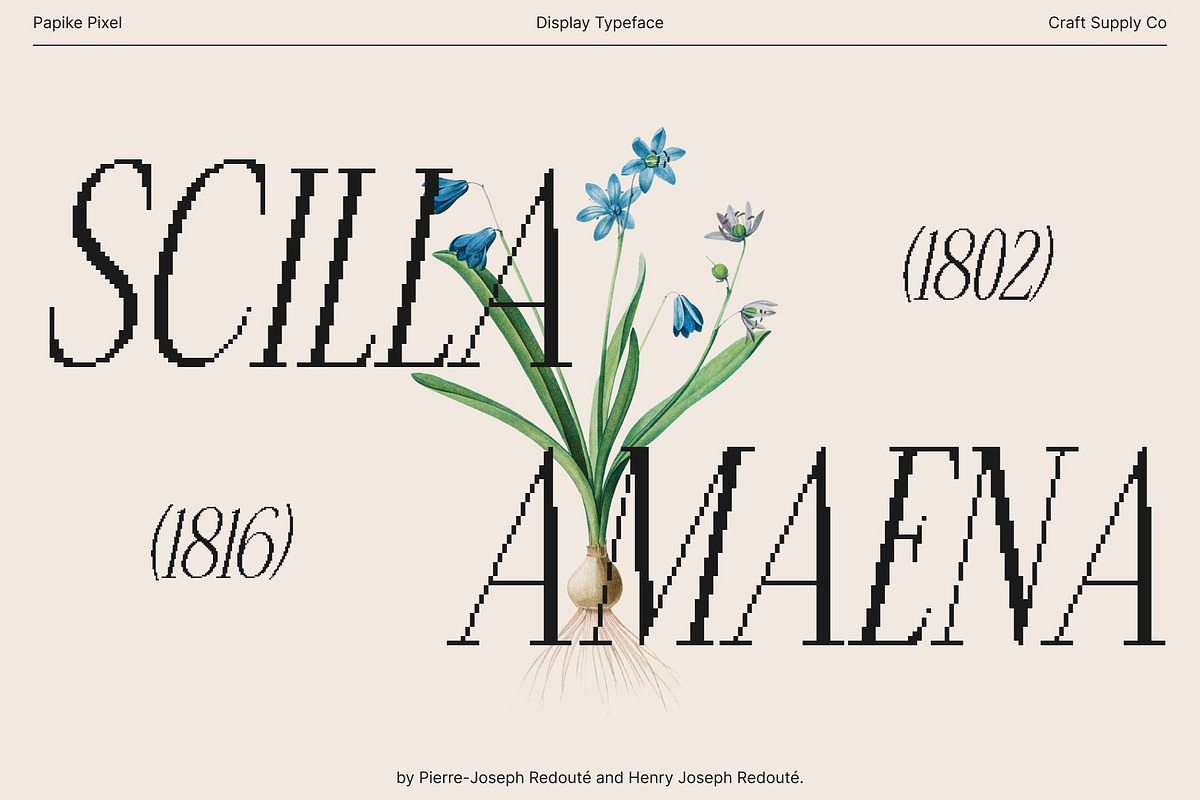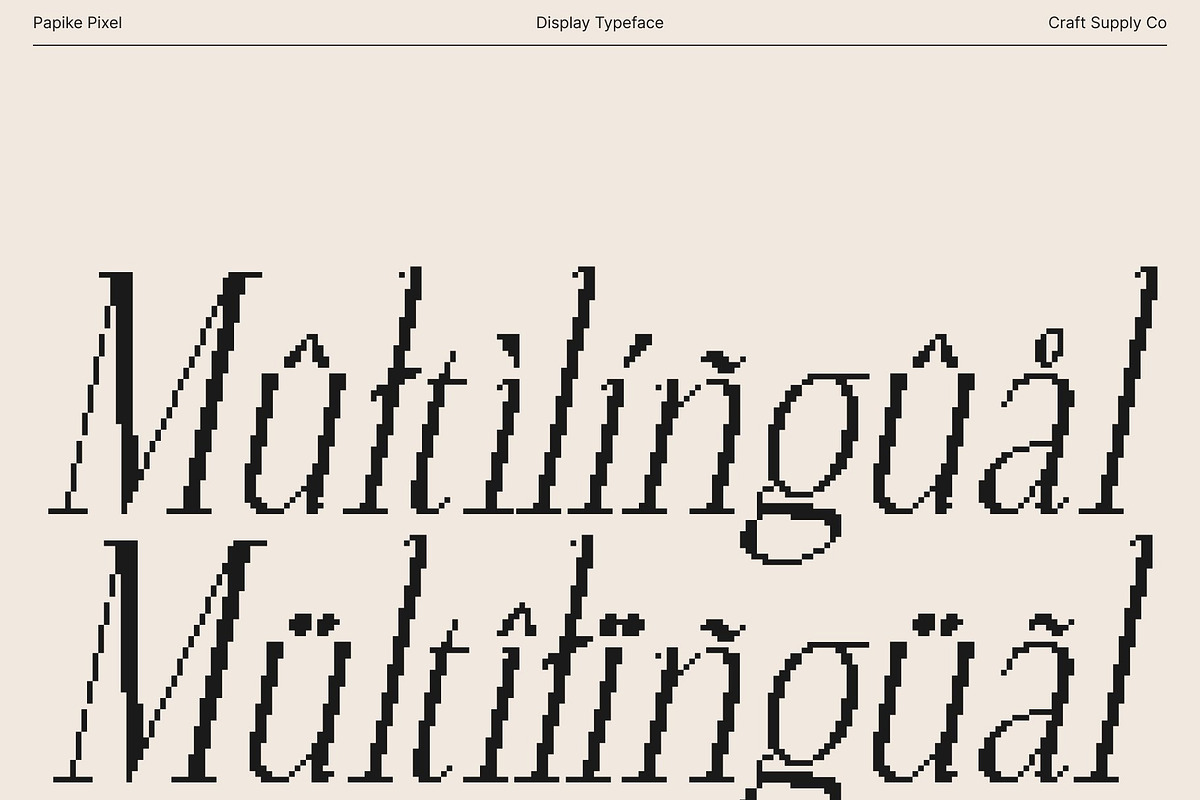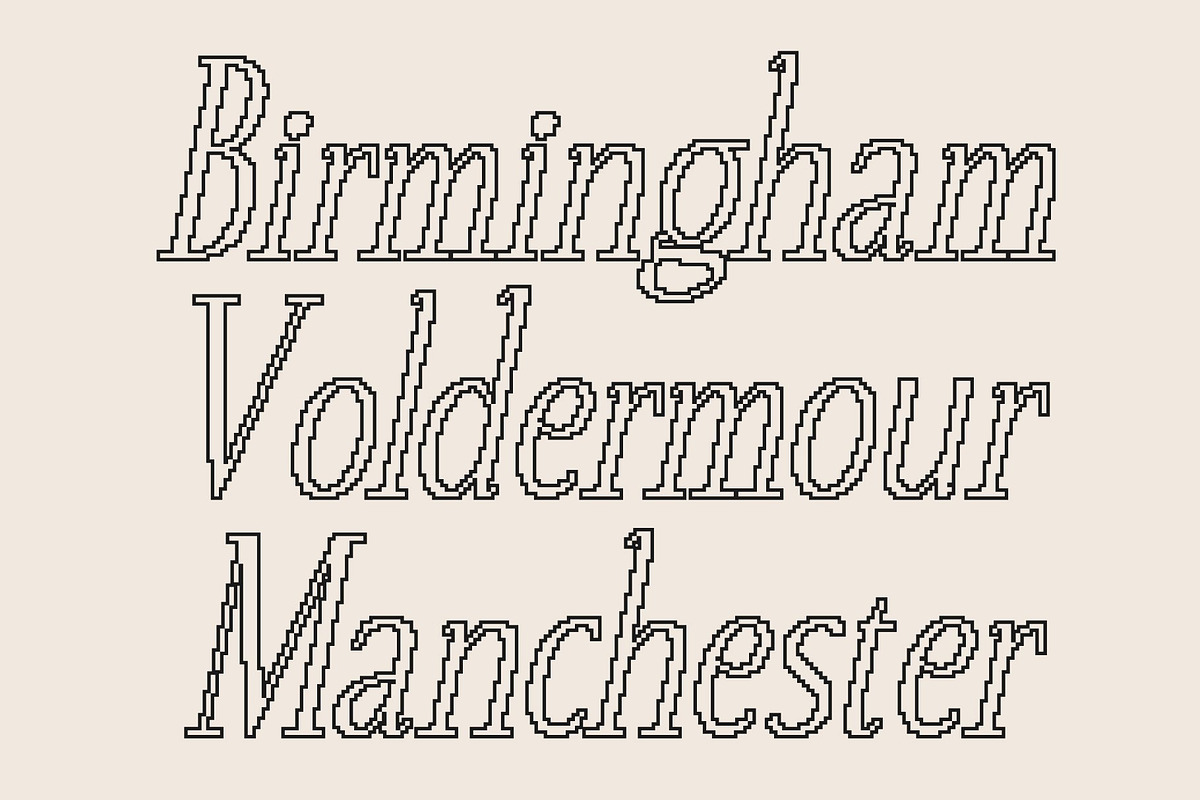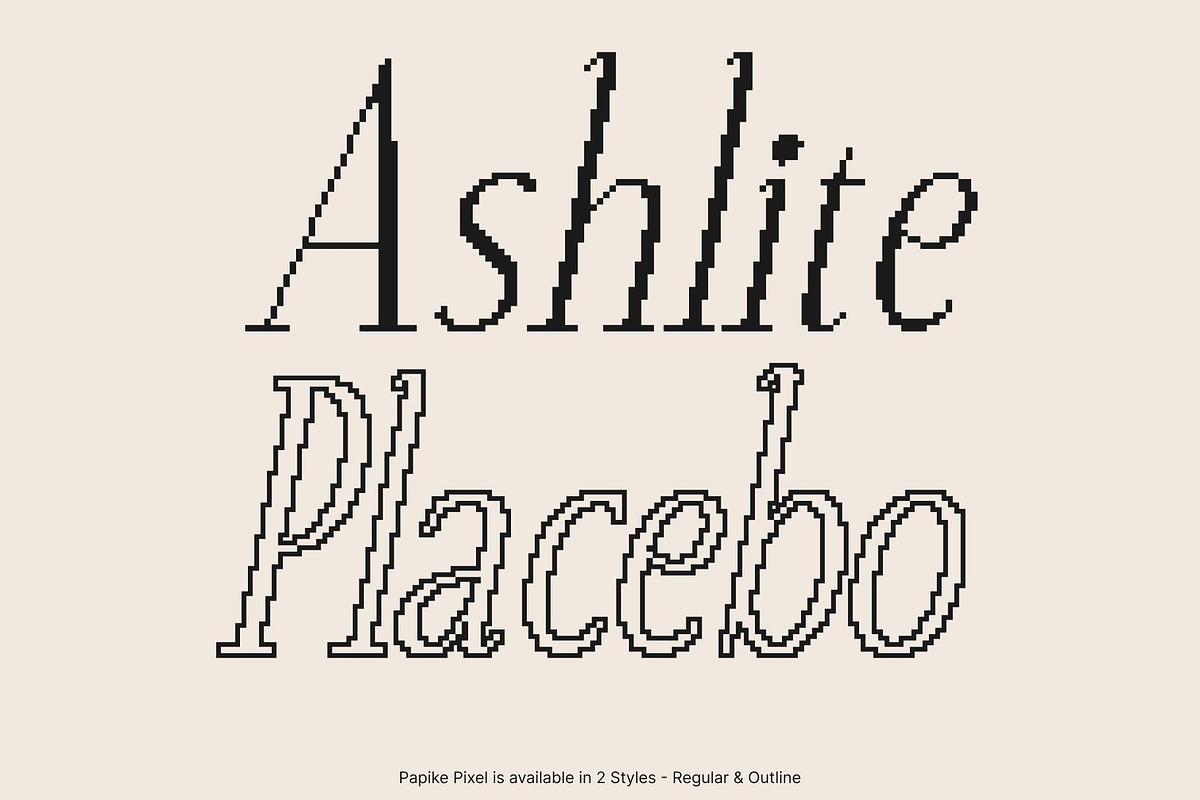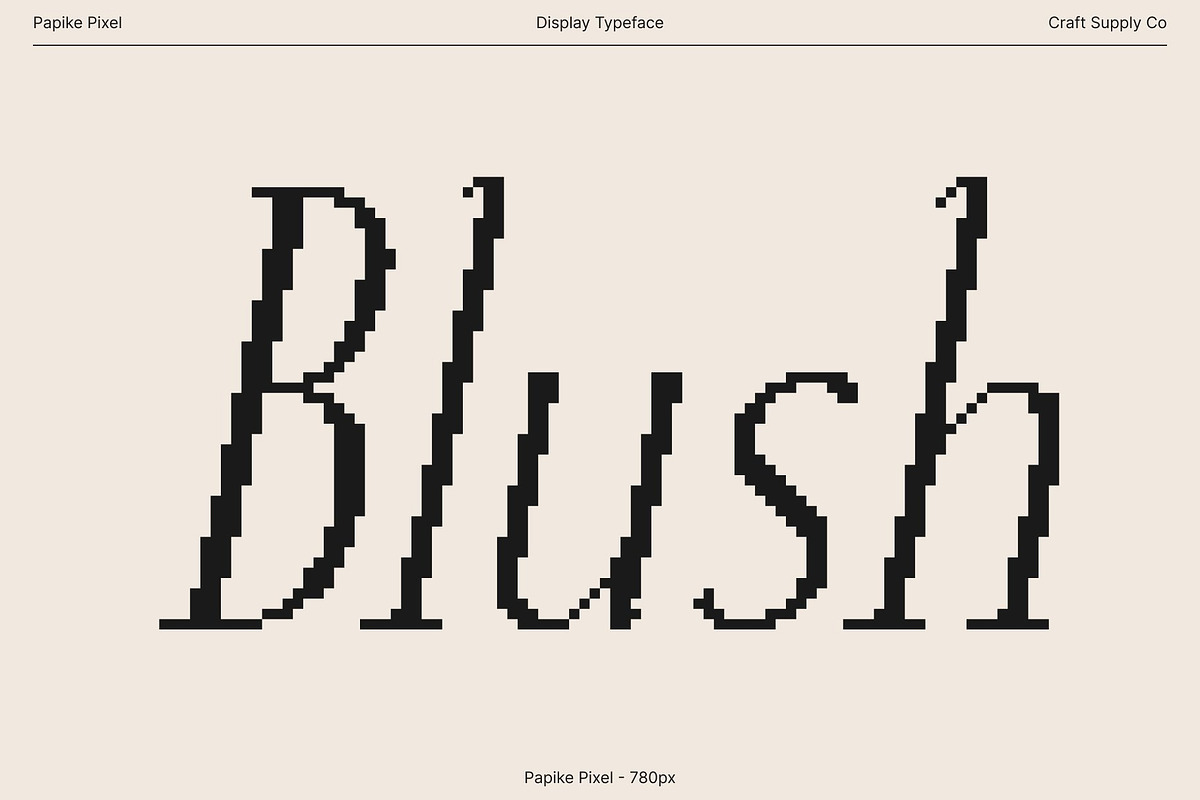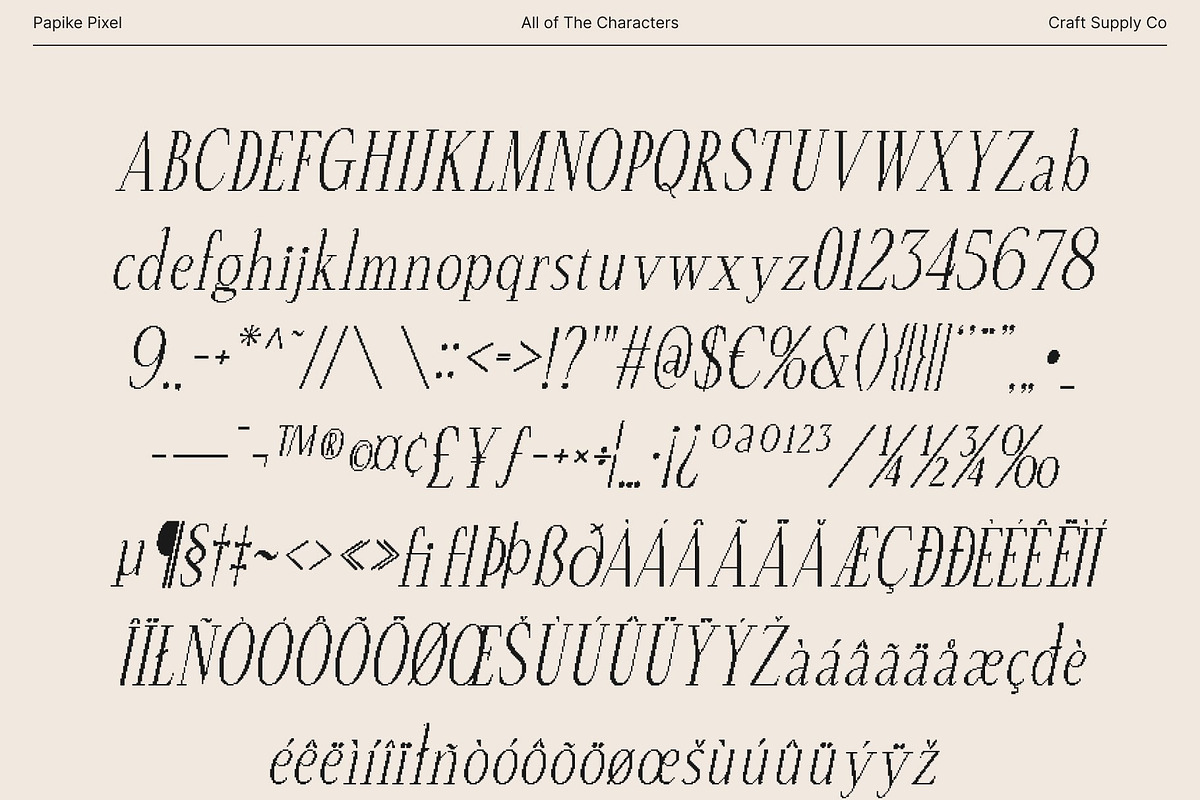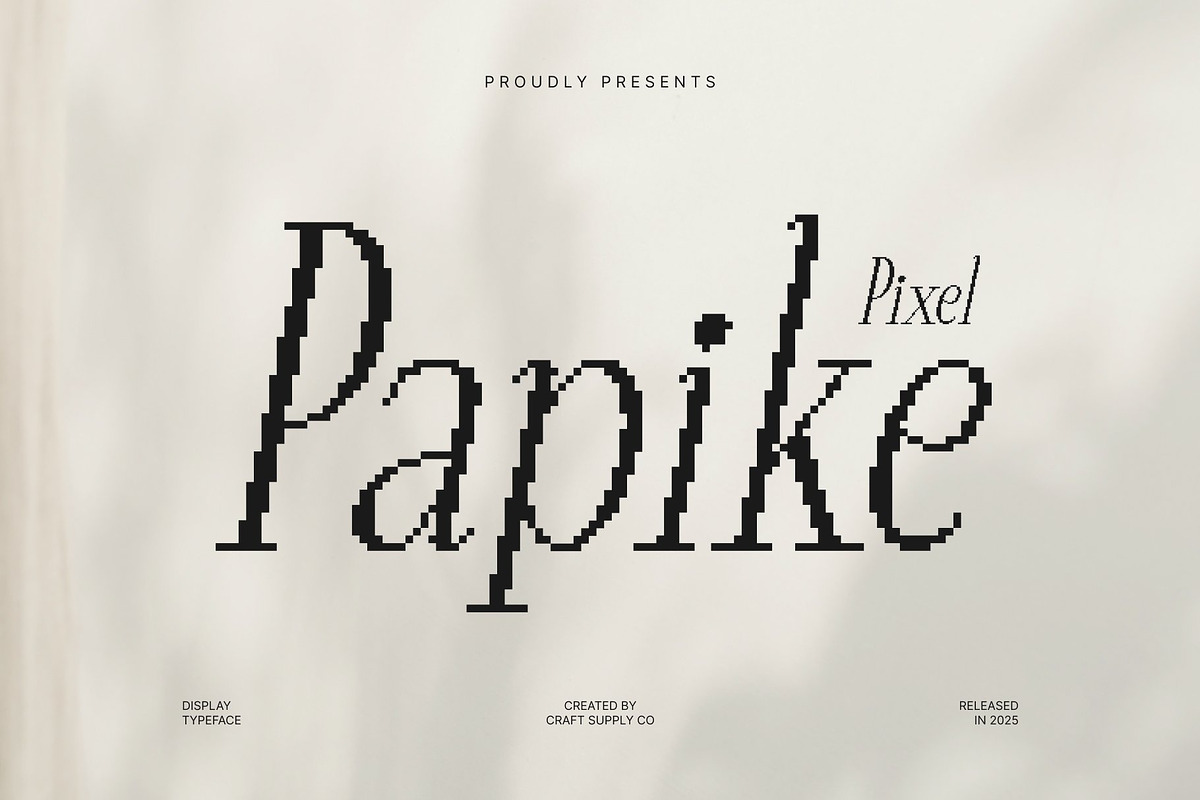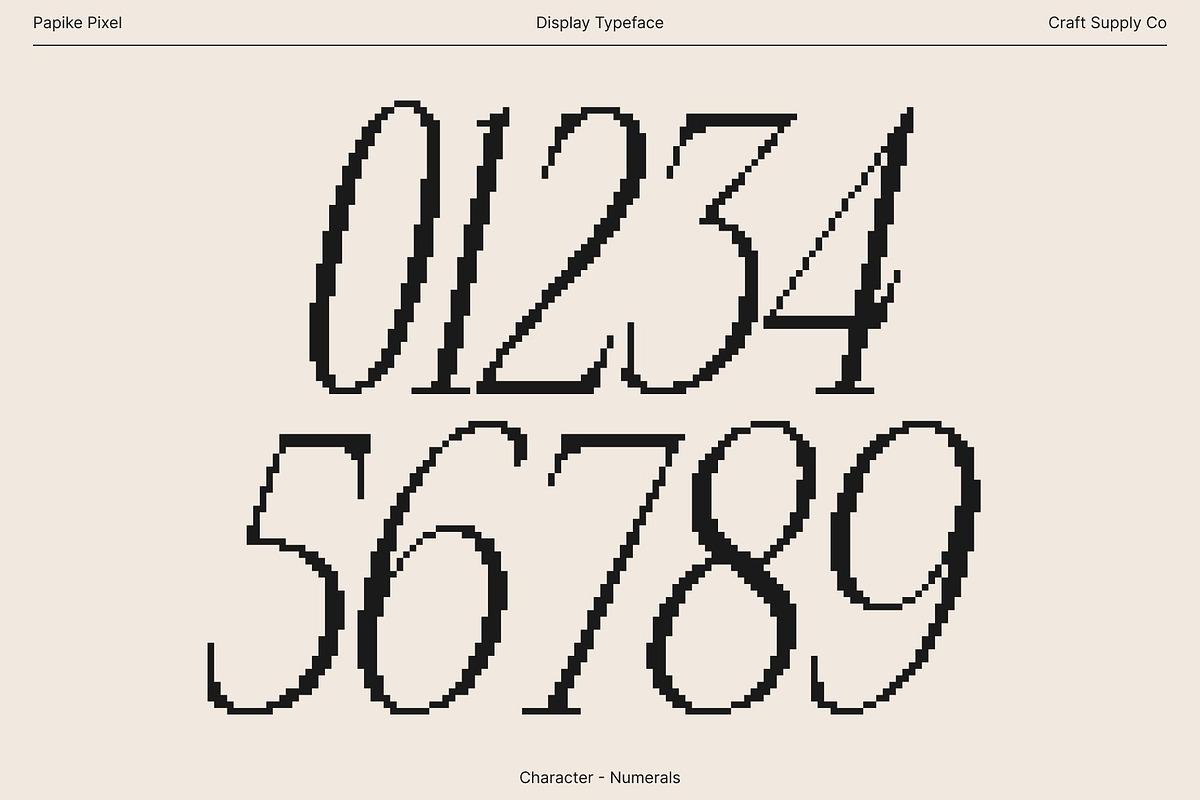
Papike Pixel
Papike Pixel – Slim Modern Serif with Elegant Pixel Aesthetics
A Refined Typeface with Slim, Graceful Elegance This is a slim modern serif font crafted for designers who value sophistication, precision, and visual refinement. Its long, graceful serifs and clean, minimal letterforms create a typeface that feels both contemporary and timeless. This elegant construction gives your layouts a polished look making this font an excellent choice for editorial designs, branding, and projects that require a subtle yet impactful touch of style.
Minimal Shapes for a Clean, Modern Impression With its sleek proportions and minimal geometry, Papike Pixel embodies the essence of modern serif design. The crisp shapes deliver strong readability while maintaining a lightweight, airy presence. This balance helps the font stand out in layouts that aim for clarity, finesse, and creative sophistication.
Pixel Texture That Adds Digital Character and Creative Flair What makes this font truly distinctive is its elegant pixel texture. This added digital layer introduces a touch of modern artistry, blending classic serif charm with contemporary pixel aesthetics. Perfect for digital-forward branding, stylish posters, and creative editorial themes. It brings a fresh edge while preserving the font’s inherent elegance.
Perfect for Editorial Layouts, Branding, Posters, and Creative Projects This font excels in applications that demand a mix of refinement and creativity. Its slim serifs and pixelated texture make it suitable for editorial layouts, magazine titles, creative branding, professional posters, or digital-centric design concepts.
- Papike Pixel Regular
- Papike Pixel Outline